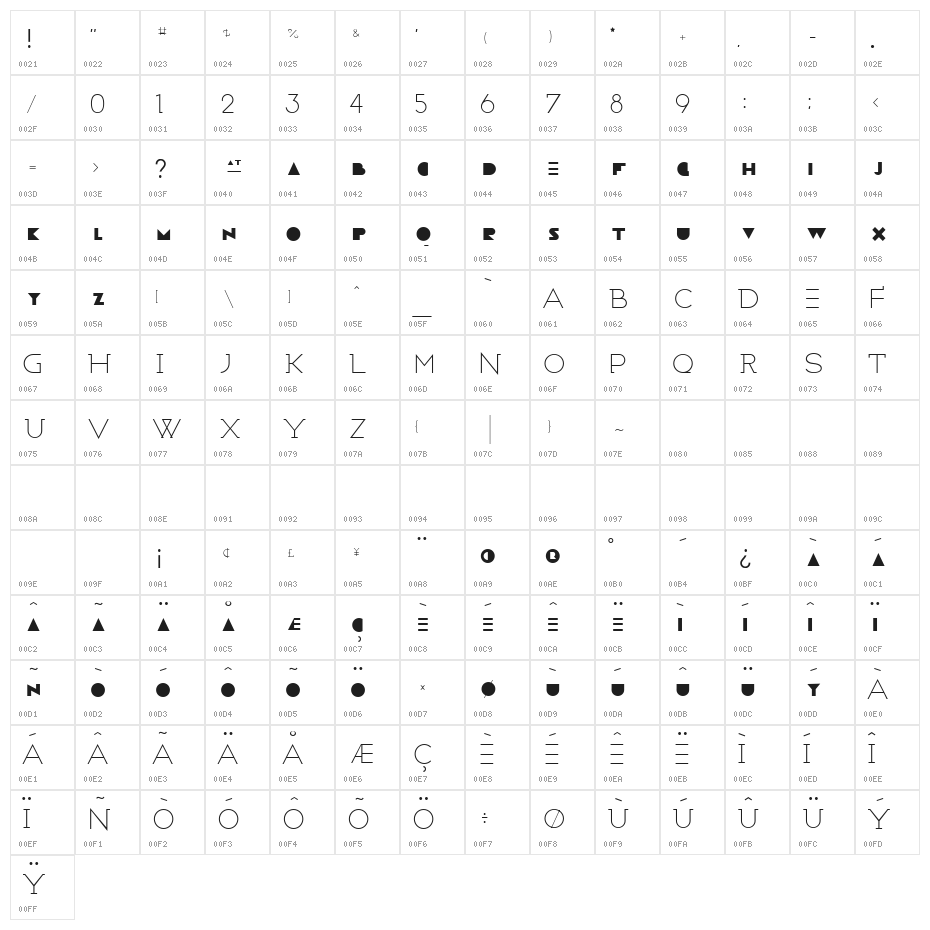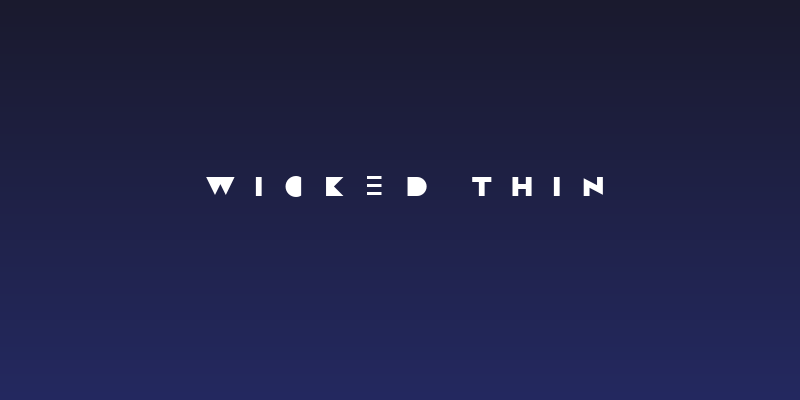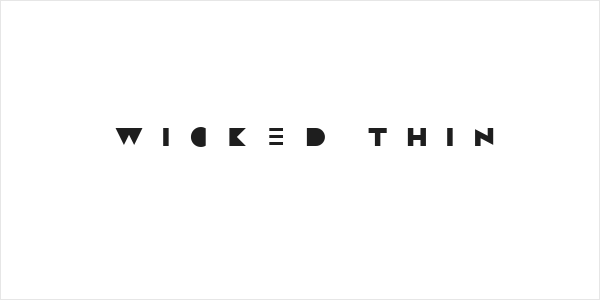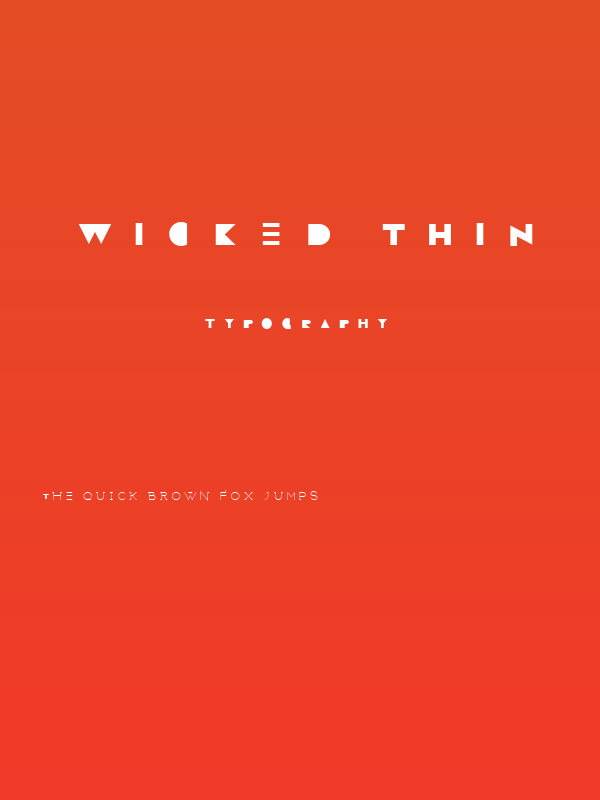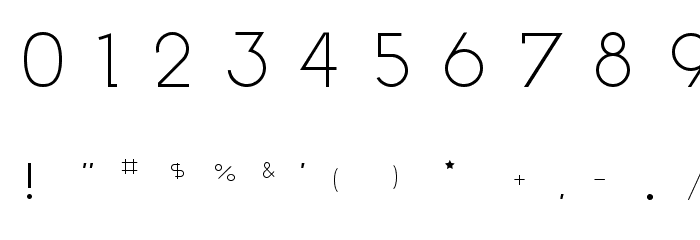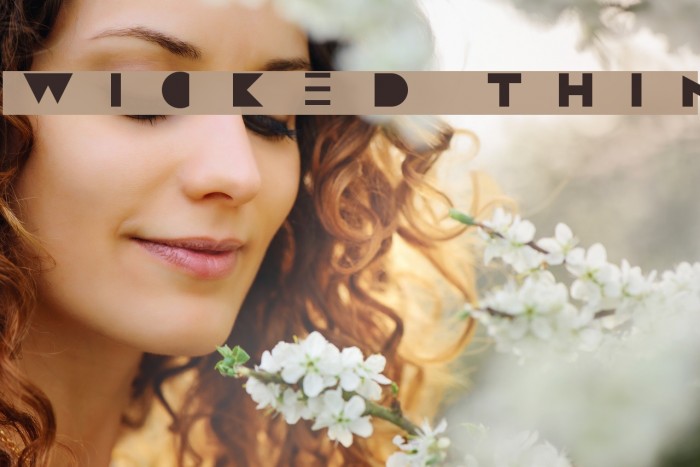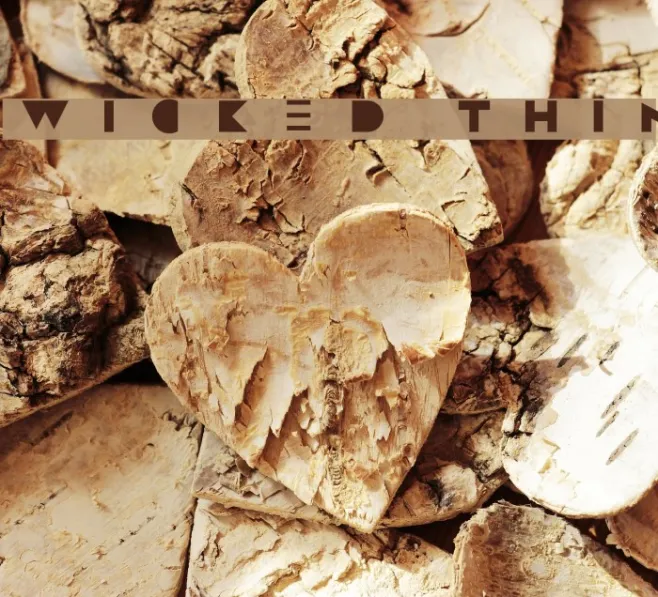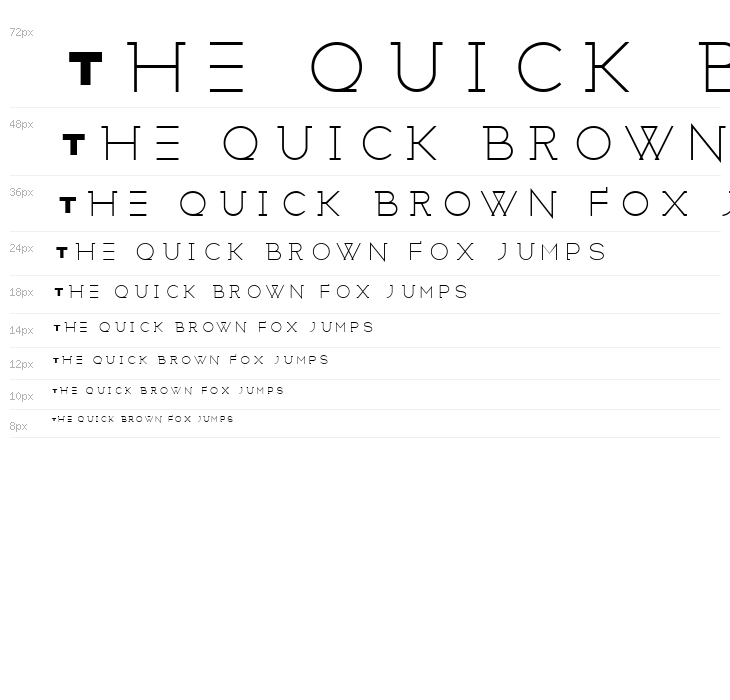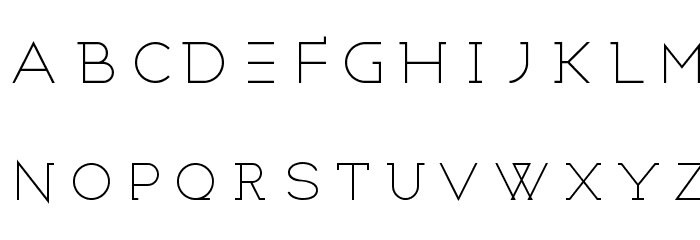
WICKED THIN Font
WICKED THIN Description
This font features two distinct styles: a bold, geometric uppercase set with strong, angular shapes and a thin, minimalist uppercase set with clean, linear strokes. The bold style uses solid, filled shapes to create a striking, modern appearance, while the thin style offers a sleek, elegant look. The numbers and special characters follow the thin style, maintaining a consistent, refined aesthetic. This dual-style approach allows for versatile use, combining bold statements with subtle elegance.
| Proposed Projects | Ideal for modern branding, editorial design, and creative posters where a mix of bold and subtle typography is needed. |